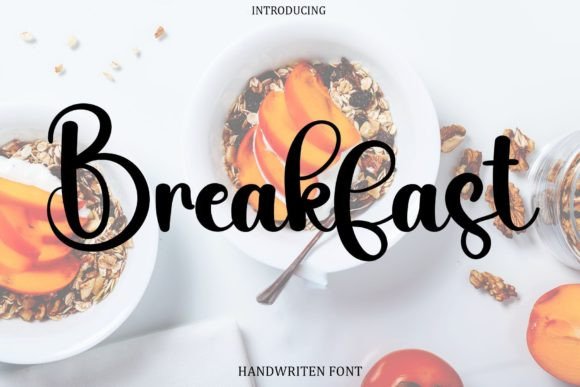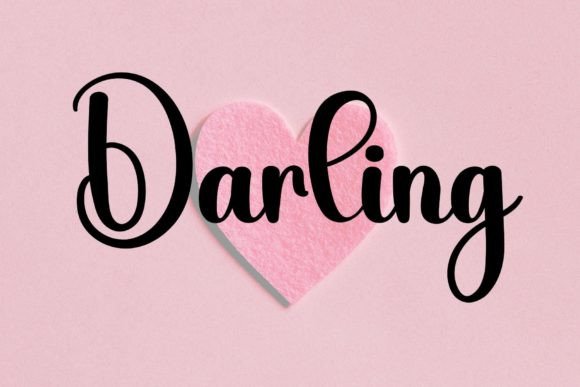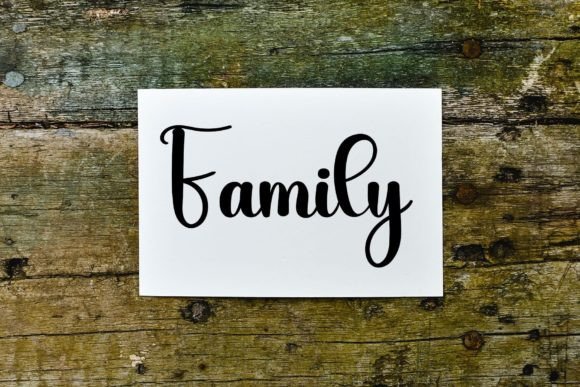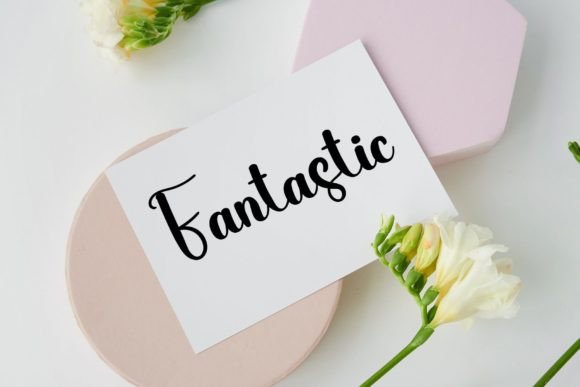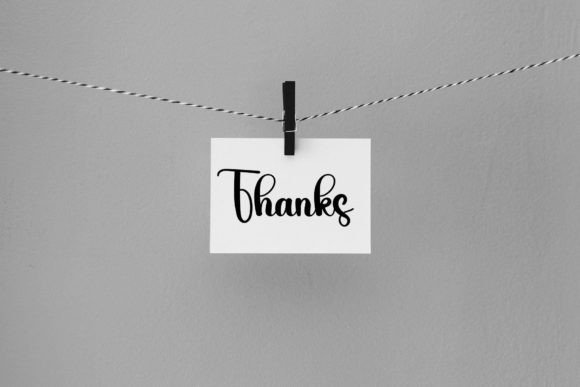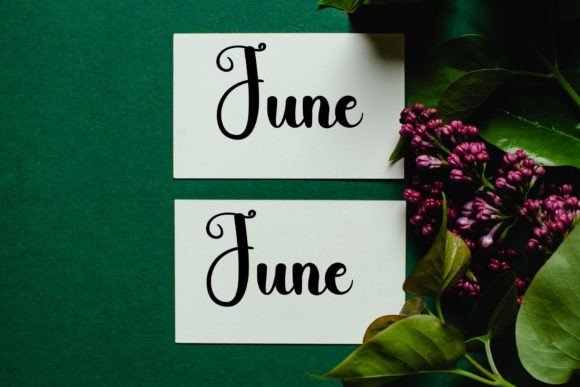
Breakfast Font
About Breakfast Font
Breakfast is not just a font; it’s a masterpiece of delicacy and sophistication, offering a handwritten style that exudes authenticity and charm. This well-rounded font is a perfect choice for crafty projects that require a touch of elegance and genuine typography. Its delicate strokes and graceful curves make it an ideal option for a variety of creative applications, including but not limited to wedding invitations, birthday cards, personal branding, and elegant logos.
Picture Breakfast gracing a wedding invitation. The font’s delicate and well-rounded characters add a sense of romance and intimacy to the invitation, creating a beautifully crafted piece that reflects the love and joy of the occasion. Each letter is meticulously designed, capturing the essence of handwritten artistry and transforming the invitation into a treasured keepsake for the bride and groom as well as their guests.
In birthday cards, Breakfast adds a touch of genuine warmth. Its delicate handwritten style conveys sincerity and thoughtfulness, making your birthday wishes feel truly special. Whether you’re creating a playful card for a child’s birthday or an elegant one for an adult, the font’s authenticity enhances the sentiment, making the recipient feel cherished and appreciated.
For personal branding, Breakfast is a game-changer. Imagine it in a stylish logo or on a business card. Its well-rounded and delicate characters create a sophisticated and memorable brand identity, showcasing the individual’s personality and creativity. Whether you’re a creative entrepreneur, a designer, or a freelancer, Breakfast adds a touch of elegance to your personal brand, making a lasting impression on potential clients and collaborators.
Moreover, Breakfast’s versatility knows no bounds. Its delicate and well-rounded design makes it easy to read, ensuring that your message is conveyed clearly to your audience. Whether you’re working on elegant menus for a restaurant, product packaging for a boutique, or inspiring quotes for social media, this font adapts seamlessly to various contexts, enhancing the overall aesthetic and leaving a lasting impact on viewers.
In summary, Breakfast is more than just a font; it’s an experience. Its delicate and well-rounded handwritten style, combined with its versatility and authenticity, makes it a valuable asset for any creative project. So, infuse your crafty projects with the charm of Breakfast and watch as it transforms them into beautifully authentic pieces, leaving a lasting impression on anyone who encounters them.